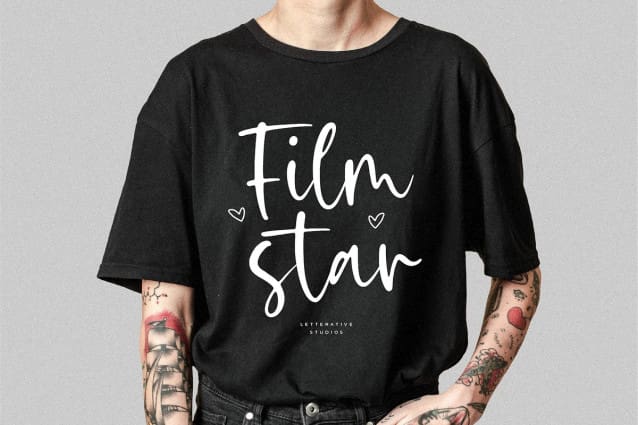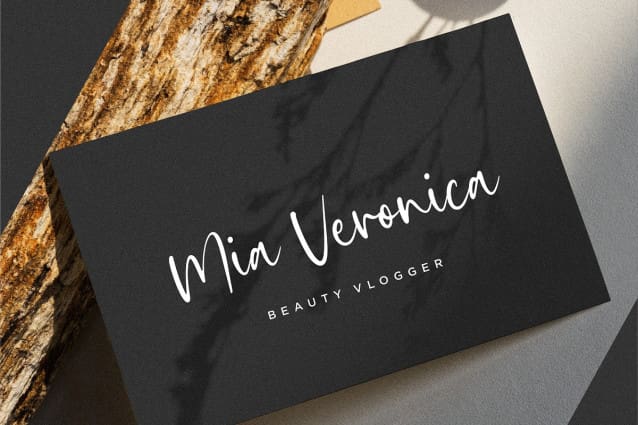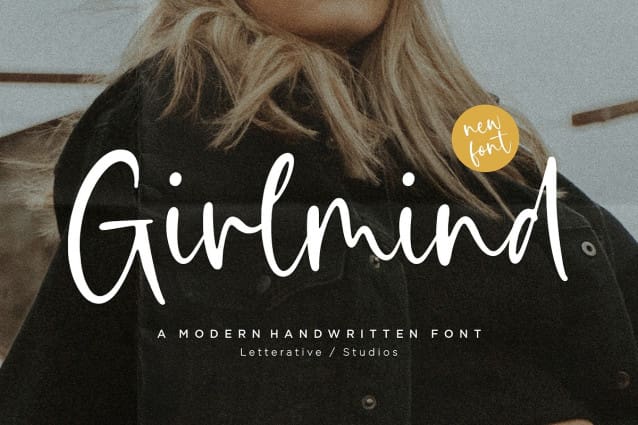
Girlmind Script Font
Girlmind Script Font is a Modern Handwritten Font. Whether you’re using it for crafts, digital design, presentations, or making greeting cards, this font has the potential to become your favorite go-to font, no matter the occasion!